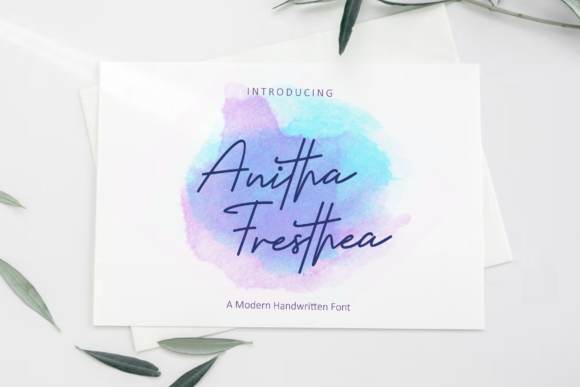
About Anitha Fresthea Font
“Anitha Fresthea” emerges as a delicate and fashionable script font, exuding an air of sophistication and charm. Tailor-made for branding projects, this font seamlessly elevates logos, t-shirt designs, creative products, and beyond. Its versatility knows no bounds, allowing it to shine brilliantly across a diverse range of contexts.
Picture “Anitha Fresthea” as an artist’s brush that paints your designs with finesse and elegance. Its intricate strokes and stylish curves imbue a touch of luxury, transforming your projects into visual masterpieces that captivate the eye. As you weave this font into your creations, you’ll embark on a journey where your concepts evolve into captivating visual narratives.
Beyond its visual allure, “Anitha Fresthea” encapsulates an essence of artistic expression. Its script nature imparts a unique charm, turning your designs into more than just visuals – they become authentic reflections of sophistication. Each character contributes to the intricate tapestry of your creative vision.
“Anitha Fresthea” stands as an indispensable tool in your design repertoire. Its adaptability ensures that it seamlessly harmonizes with various styles, themes, and intentions. Whether you’re crafting a memorable logo, adorning t-shirts with a touch of class, or enhancing the appeal of creative products, this font amplifies the resonance of your message.
In a world where design communicates volumes, “Anitha Fresthea” becomes your vehicle for crafting designs that resonate deeply and leave an indelible mark. Let its delicate strokes be the artistic flourishes that enhance your creations, infusing them with a touch of script elegance. Embrace the fashionable allure of “Anitha Fresthea” and watch as it transforms your projects into captivating showcases of refined creativity, resonating with all who engage with them.